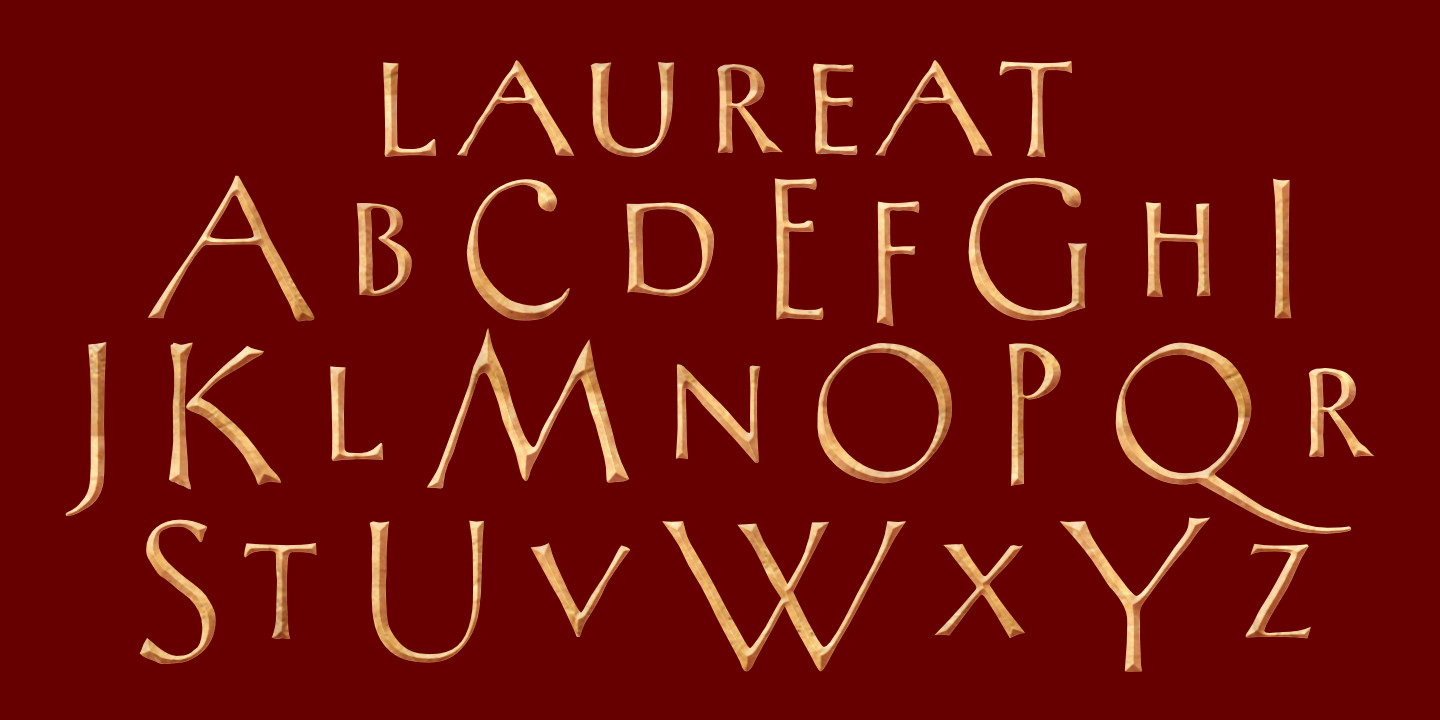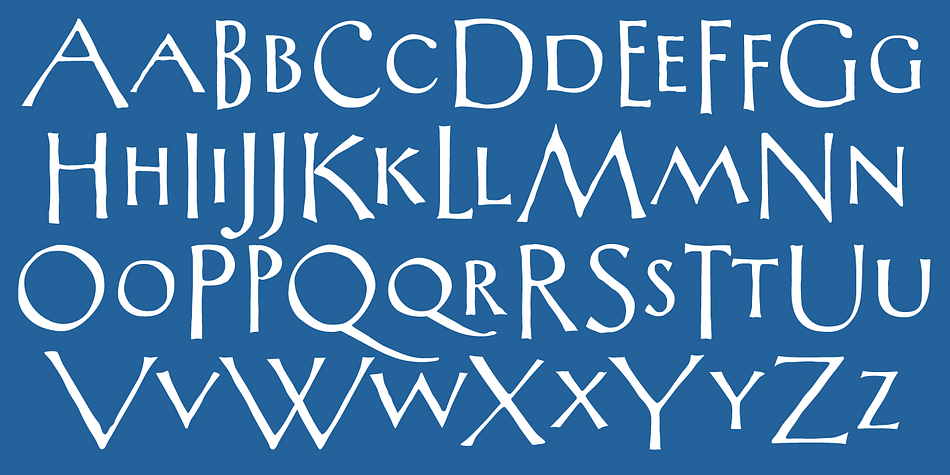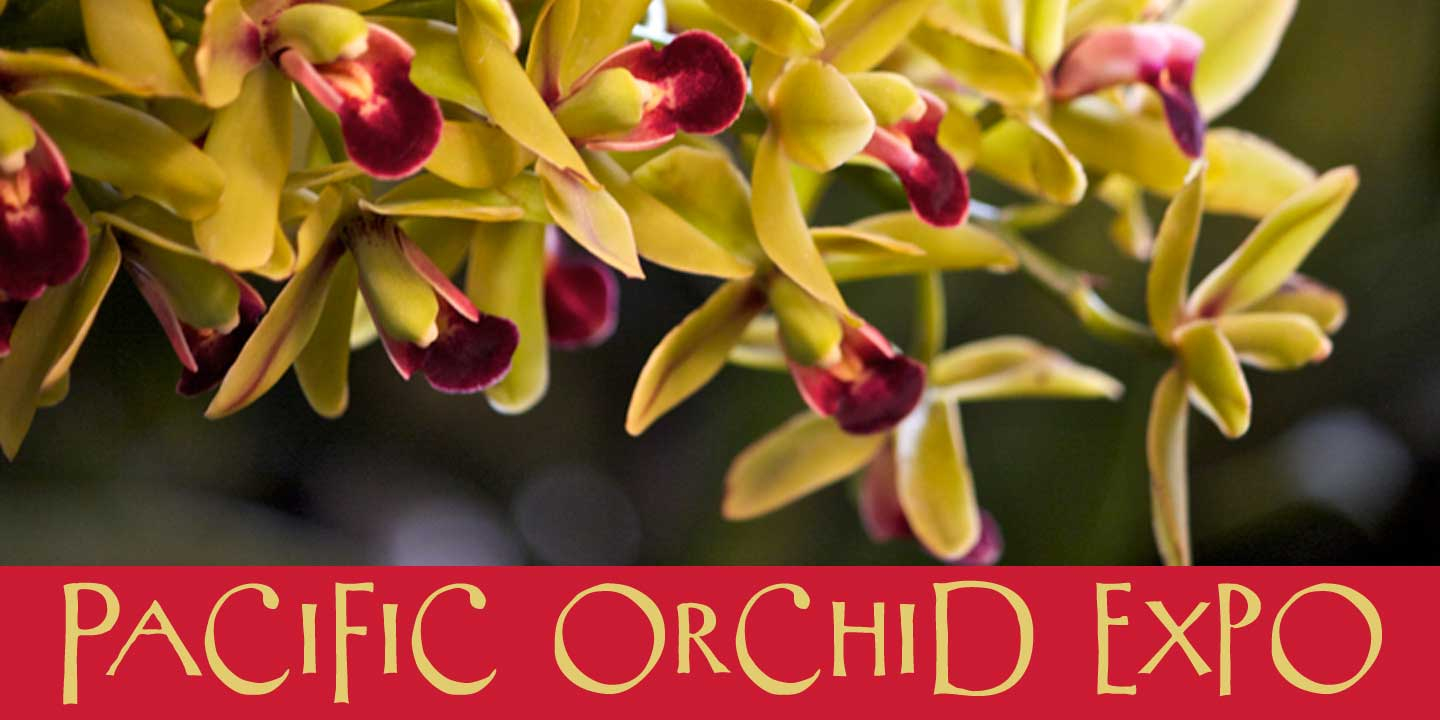
Laureat is a historical font published by CastleType.
Laureat™ is based on hand-drawn letters from a Russian poster. Although the letterforms are classic in style, the roughness of the hand-drawn edge suggests a more casual use. Uppercase only, but each letter has four different sizes for creating very interesting typography.